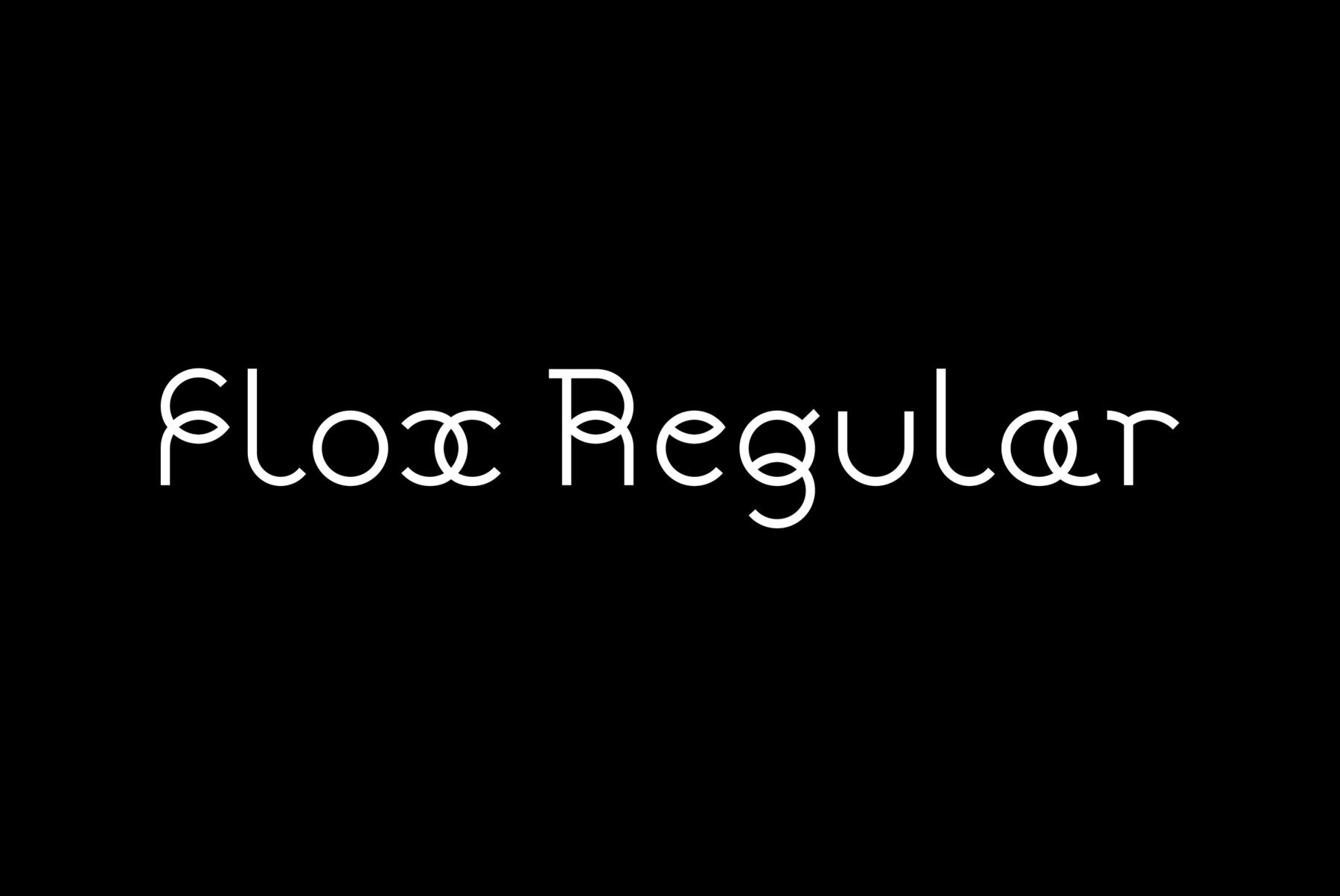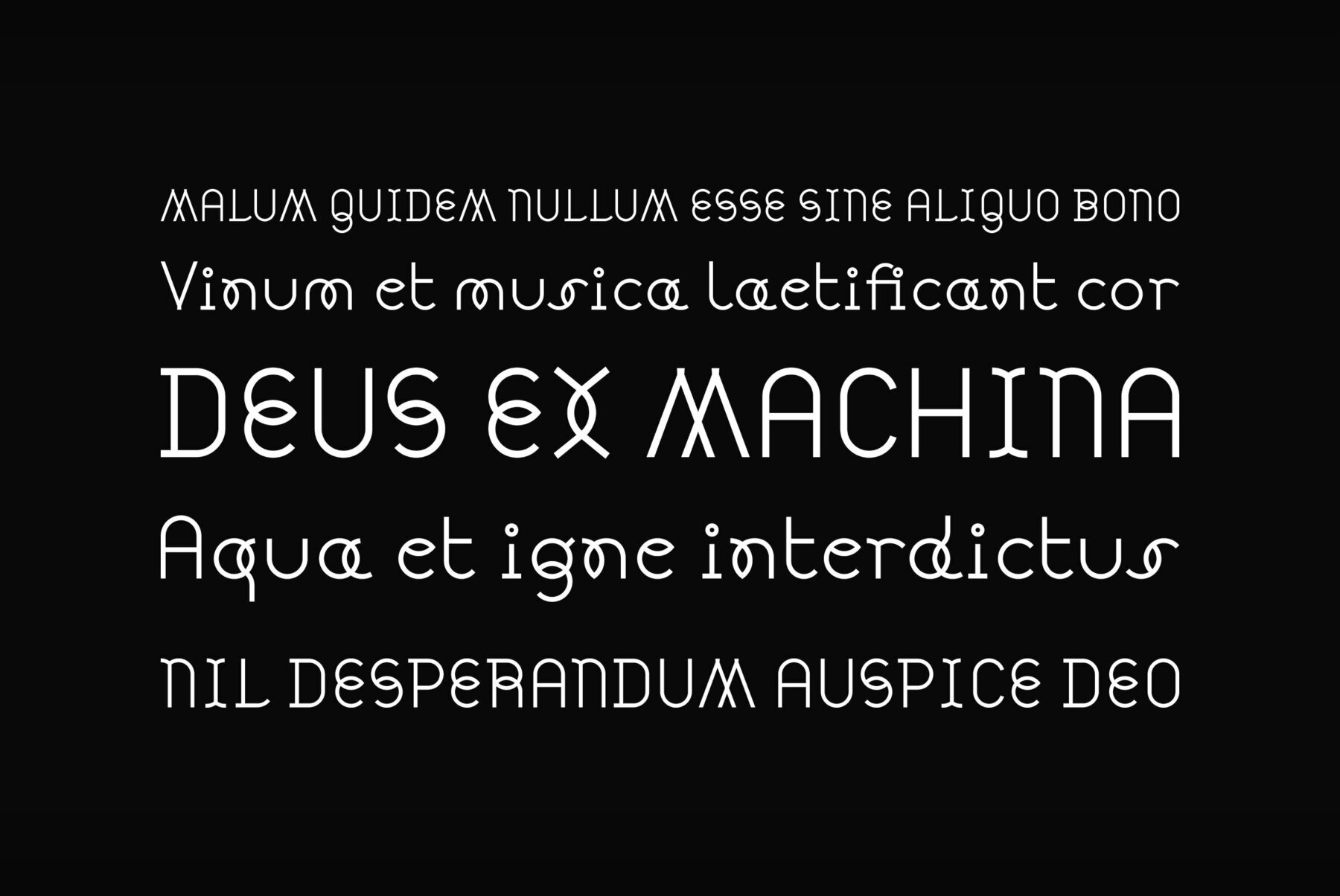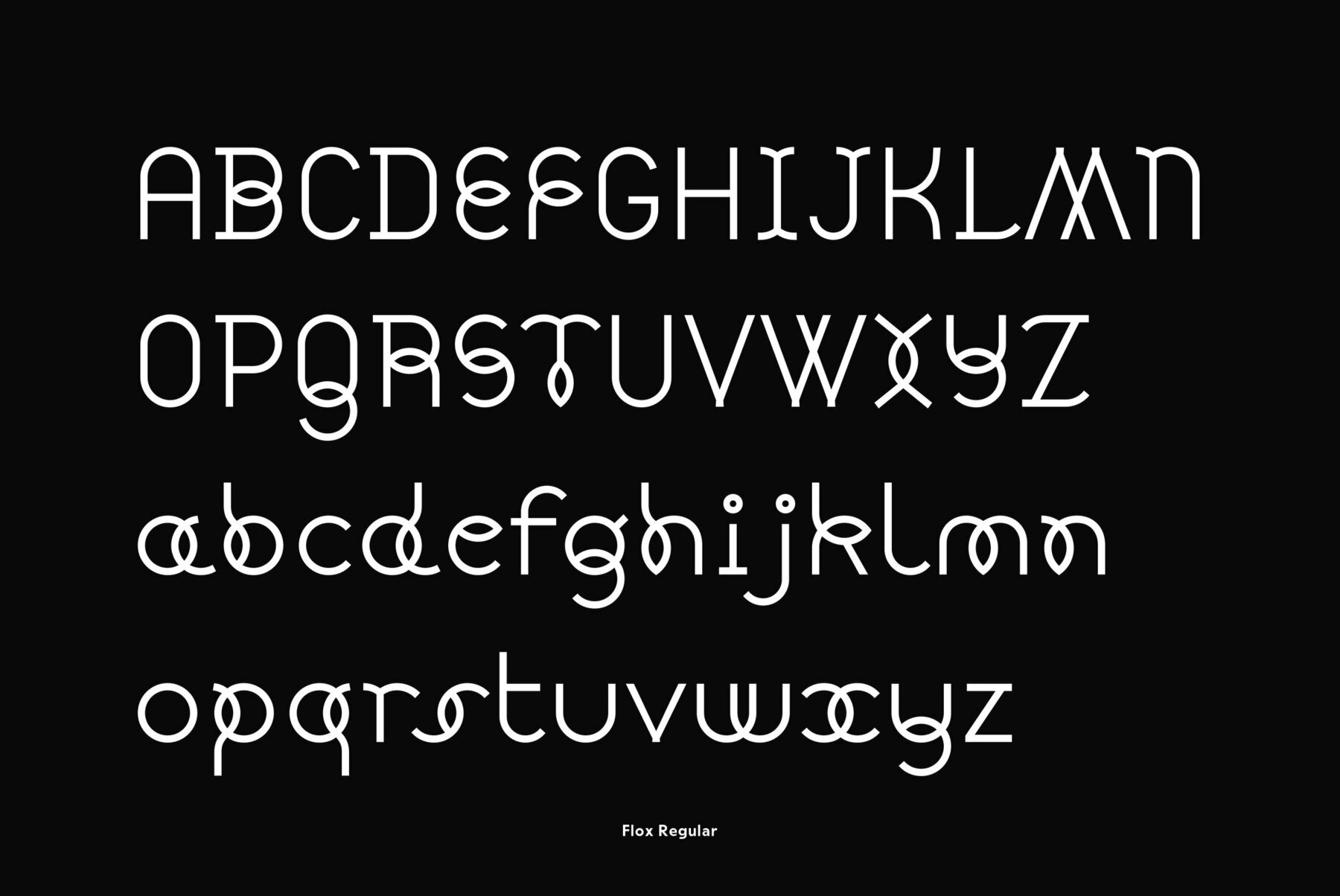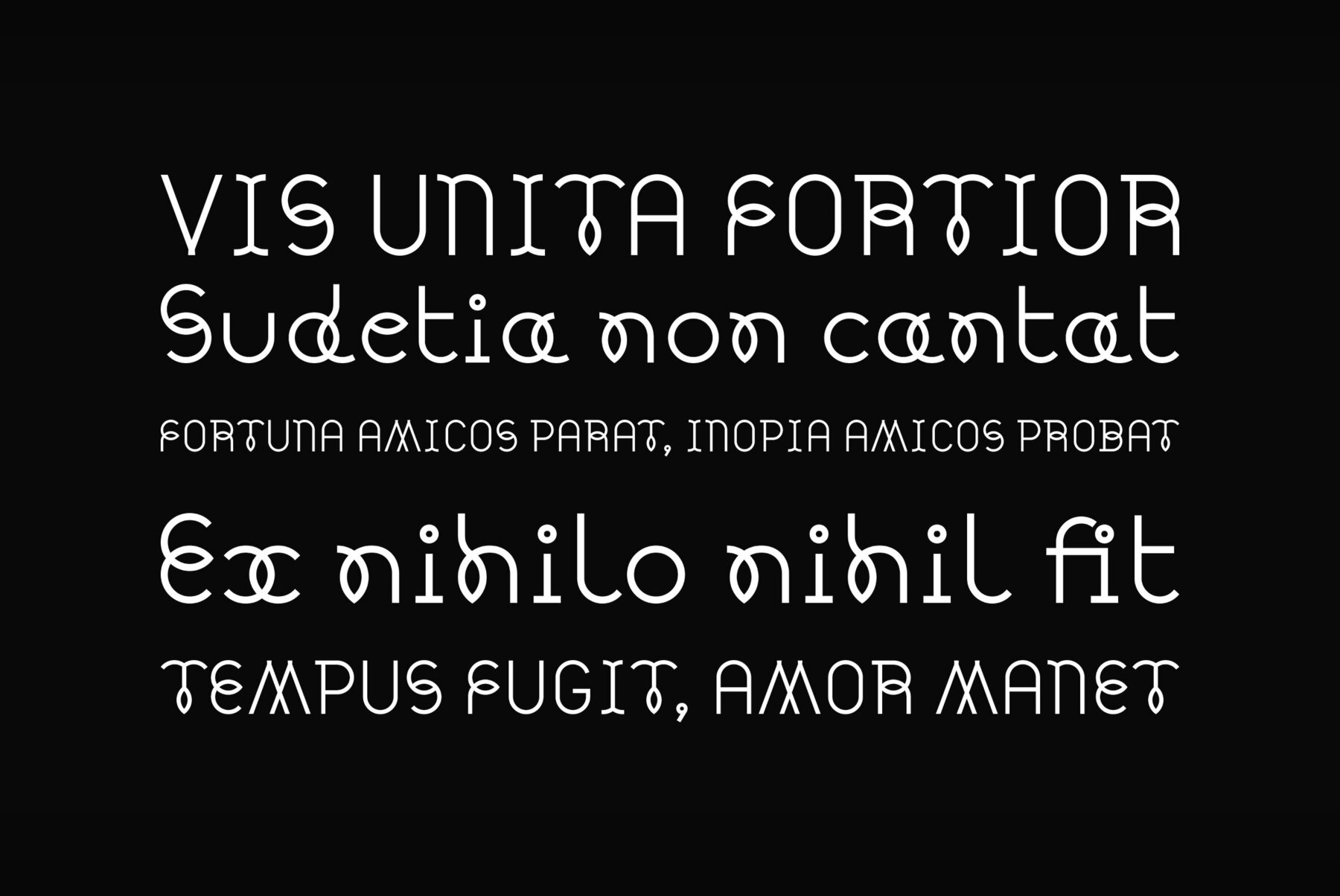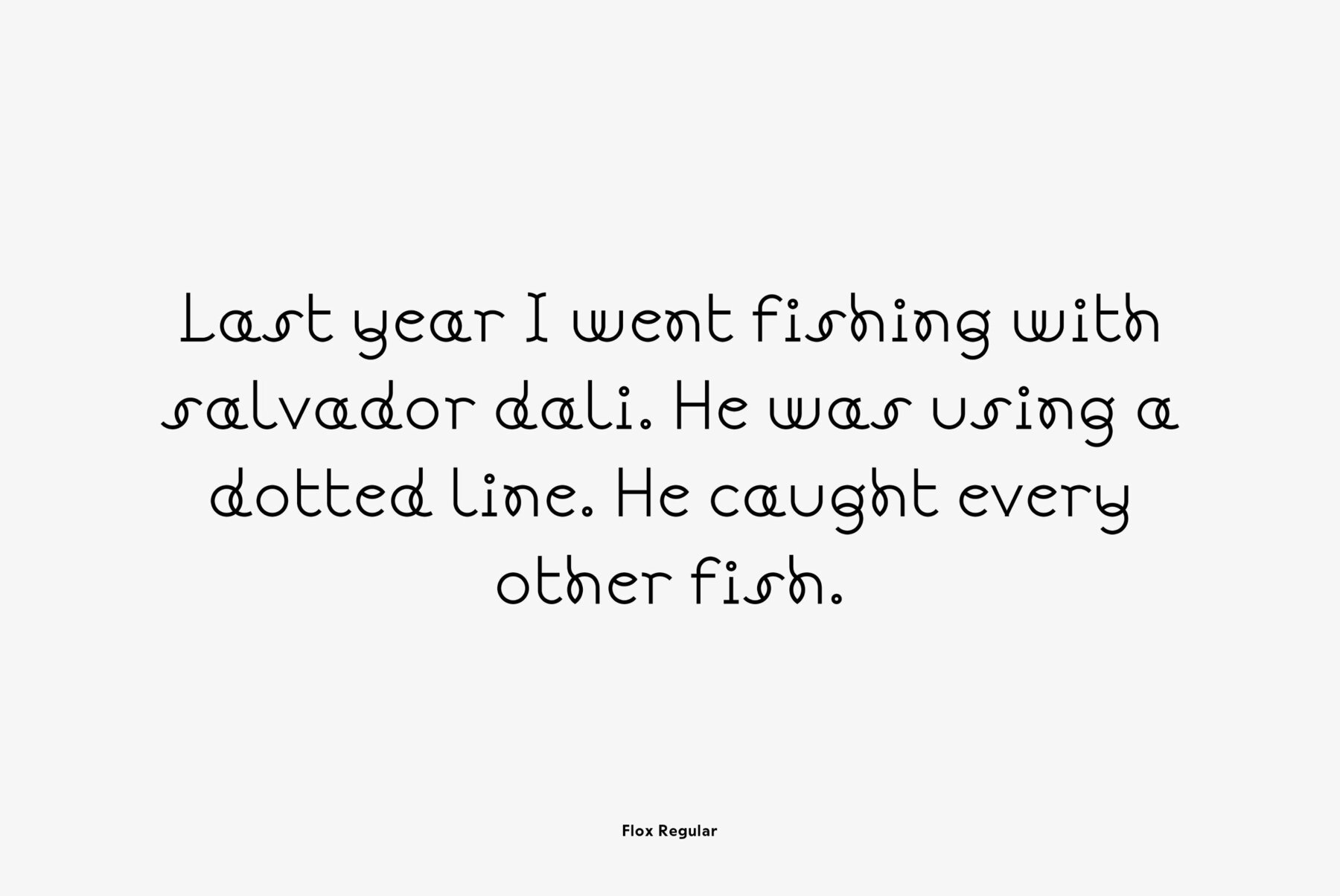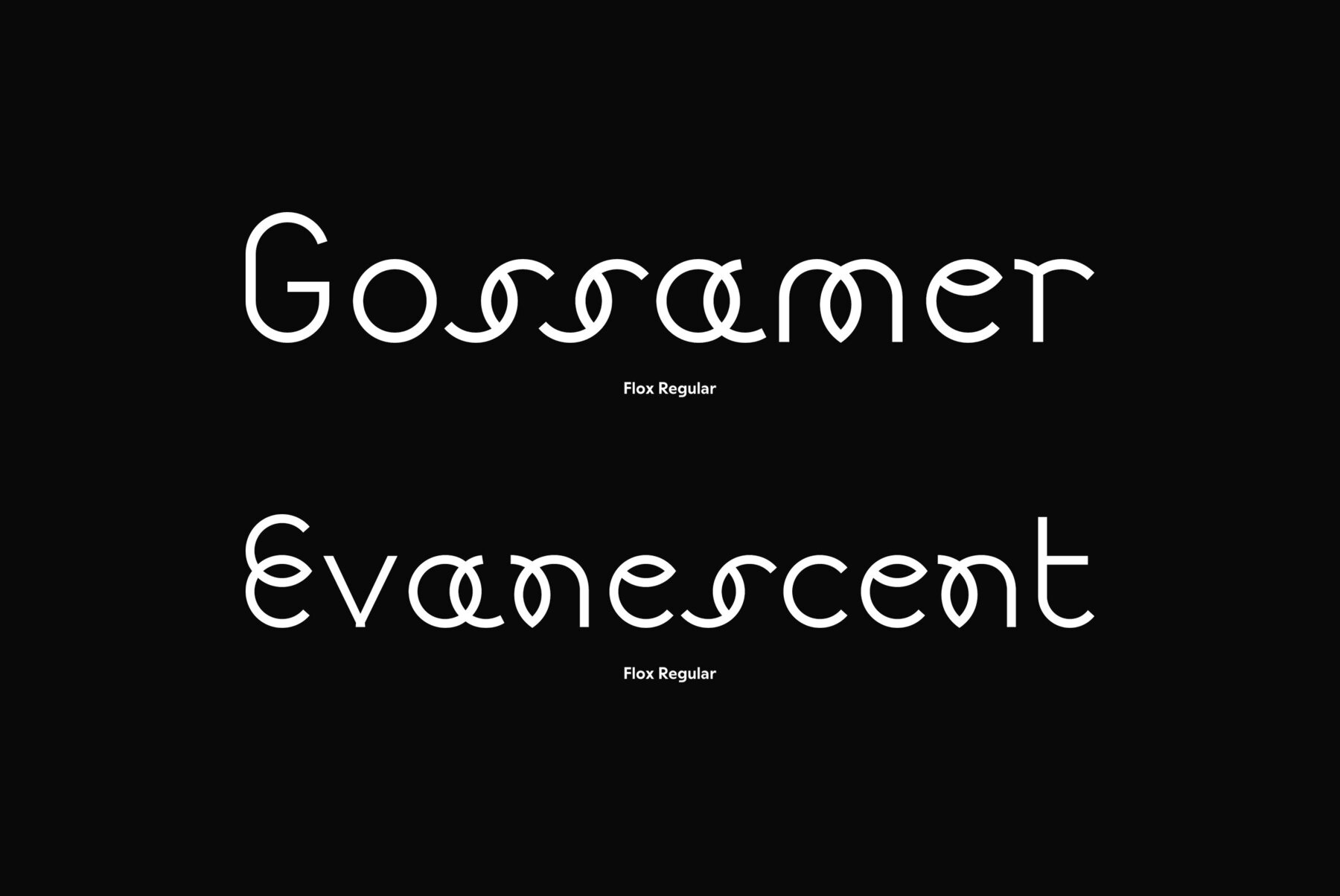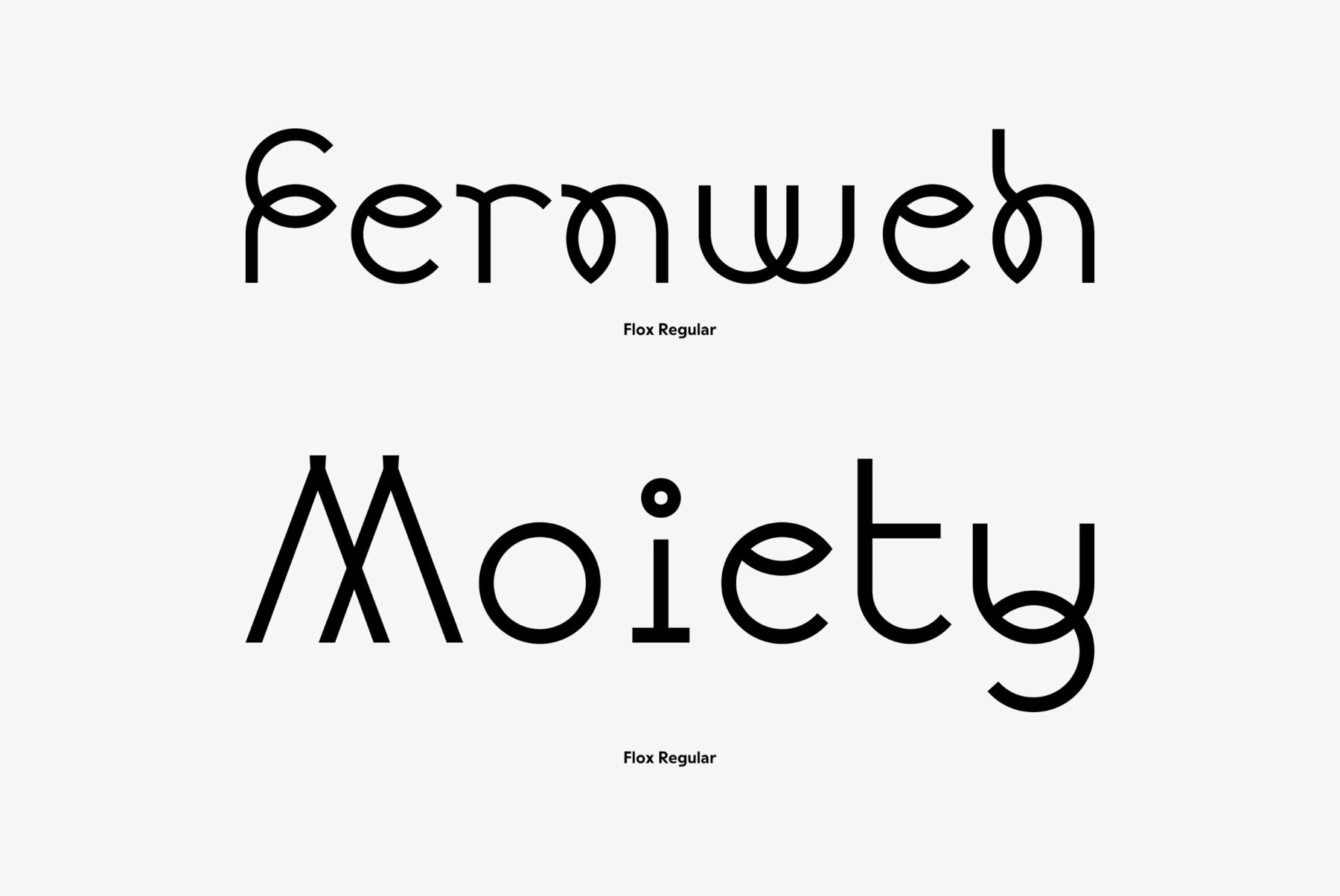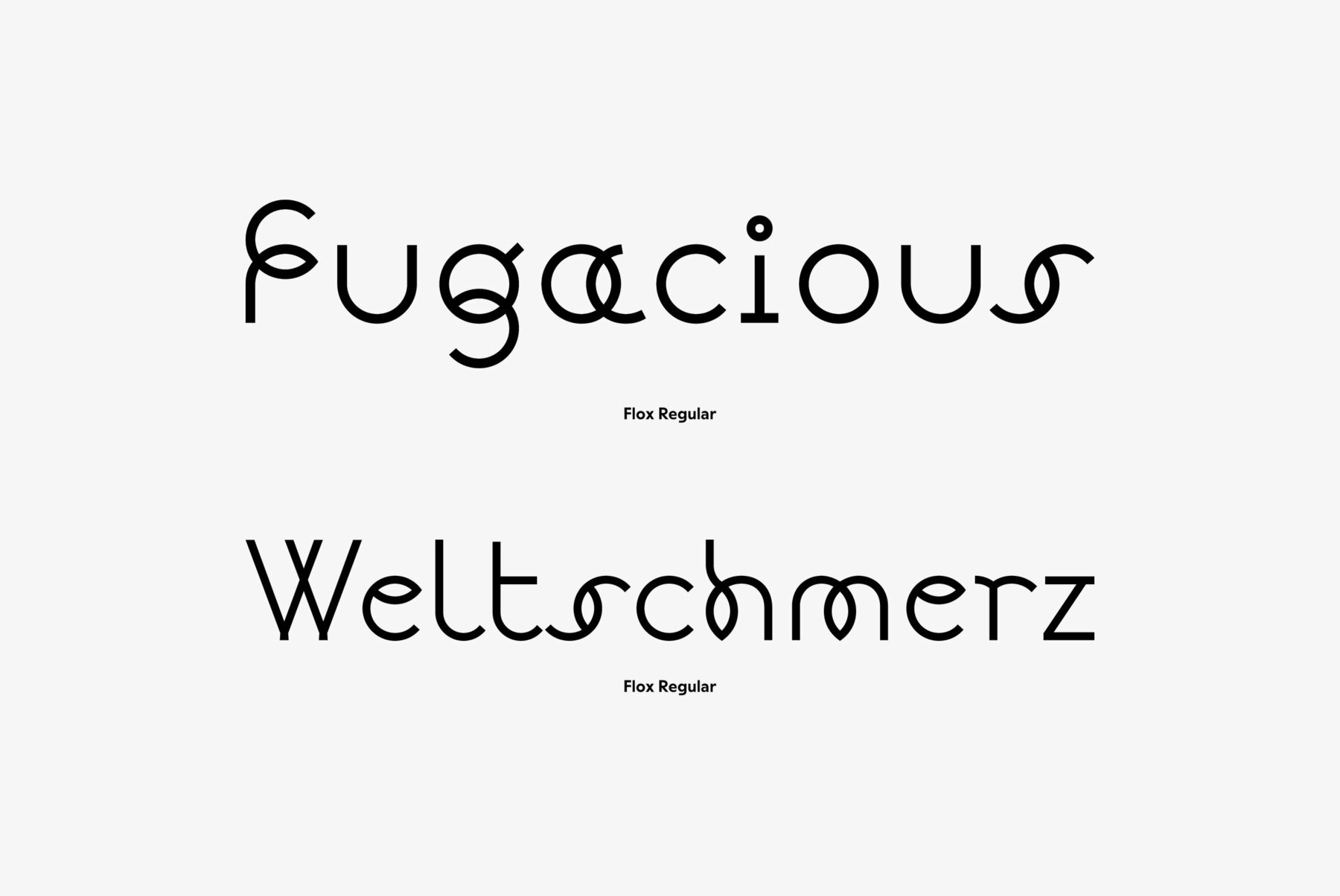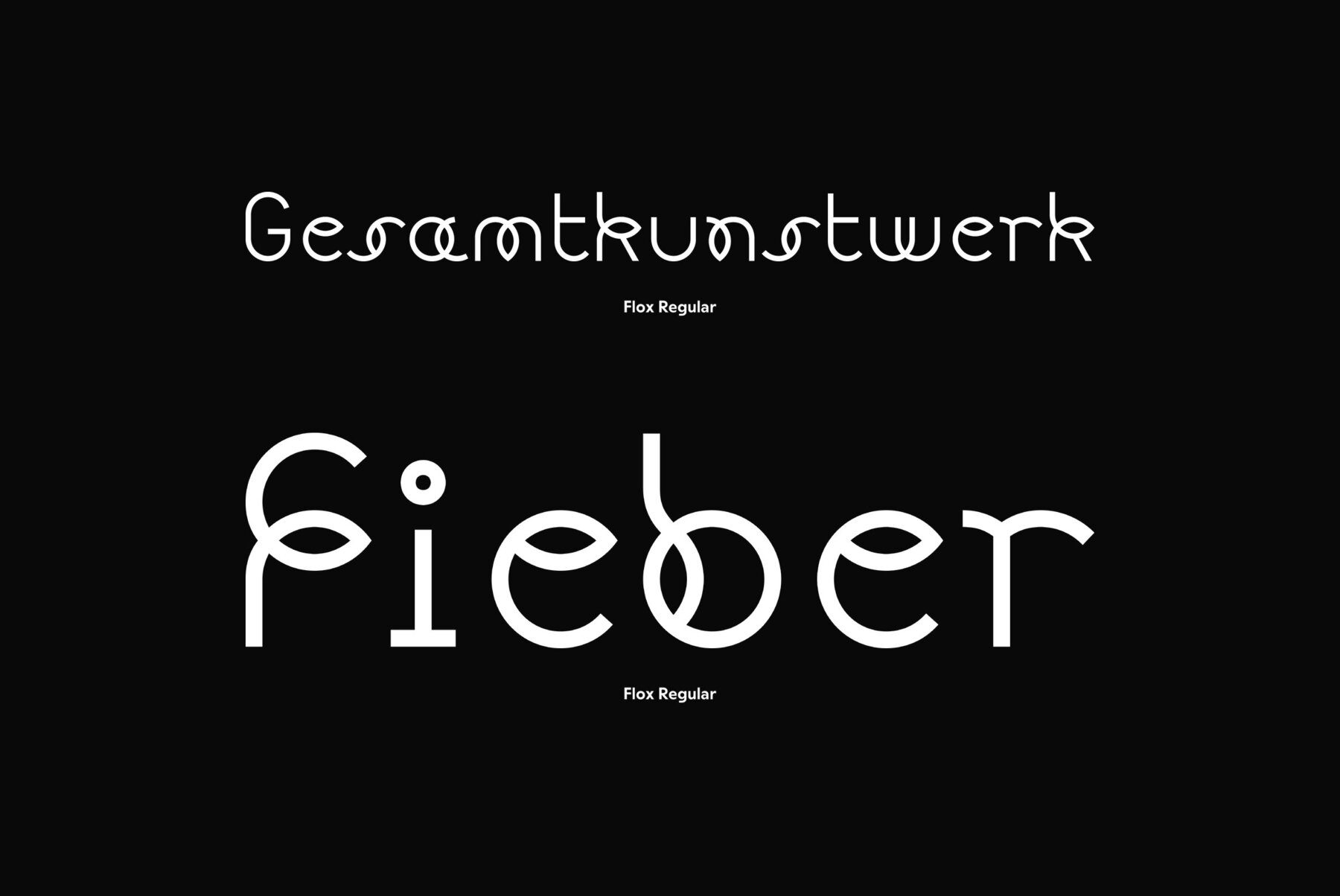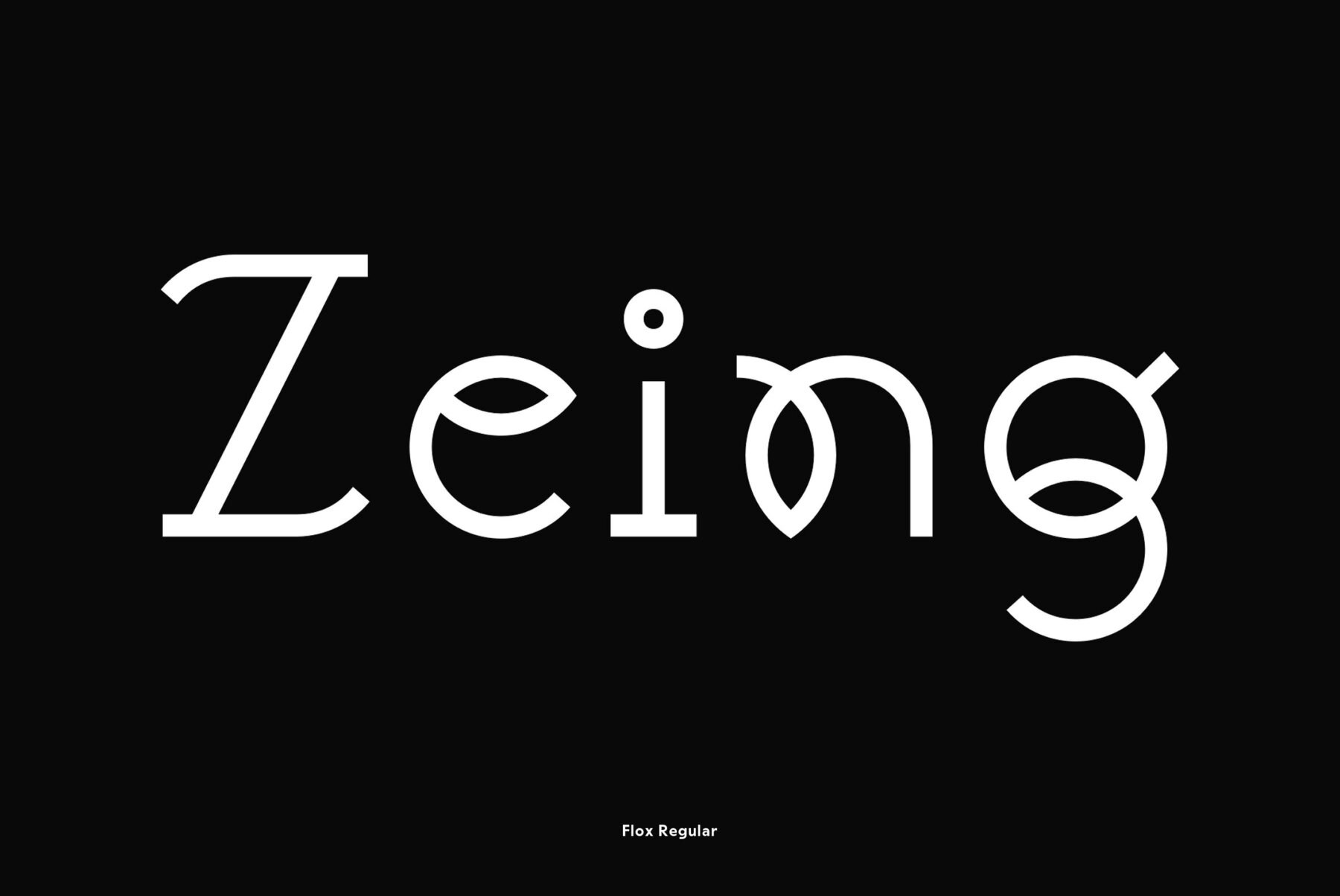
Flox display typeface was designed in 2000 by Vladimir Pavlikov. Cyrillic was developed in 2005. The project was aimed to create a decorative vivid alphabet of geometric shapes. For use in advertising and display typography. Licensed by ParaType in 2005.